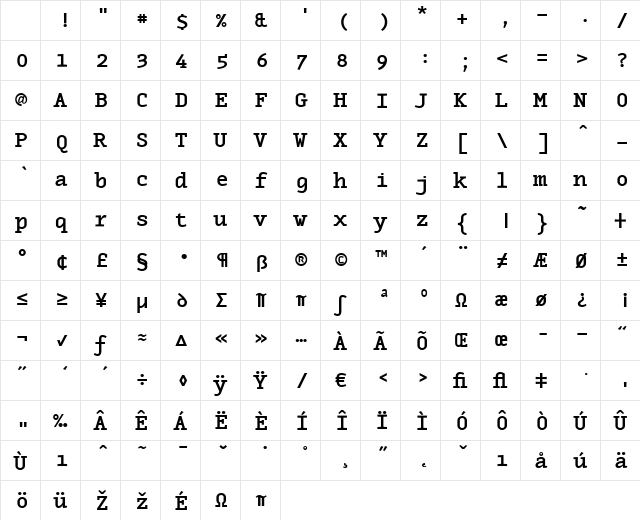
Complete MonoxSerifBold Regular glyph index. Displaying only characters natively supported by MonoxSerifBold Regular font.
MonoxSerifBold uses fixed-width spacing throughout, giving it the structured, systematic character associated with coding environments and technical documentation. Its bold stroke weight gives it real presence on the page.
Pro Tip: Use MonoxSerifBold with slightly increased line-height for extended reading - fixed-width spacing can feel dense in longer passages without extra breathing room.